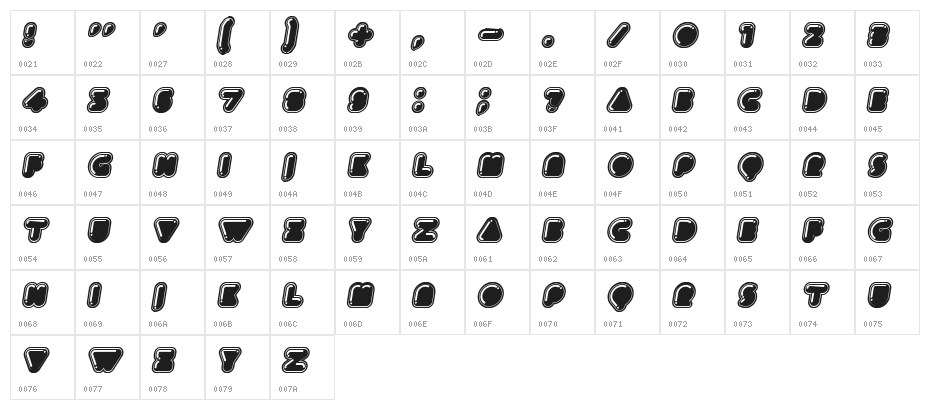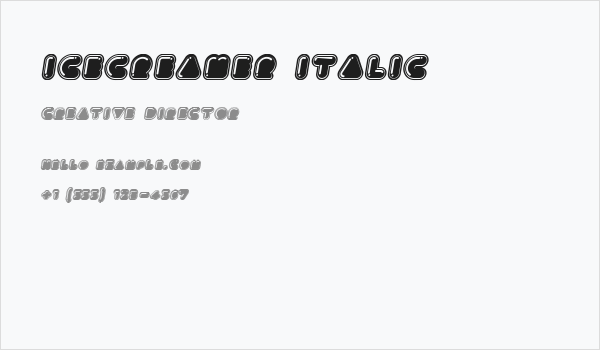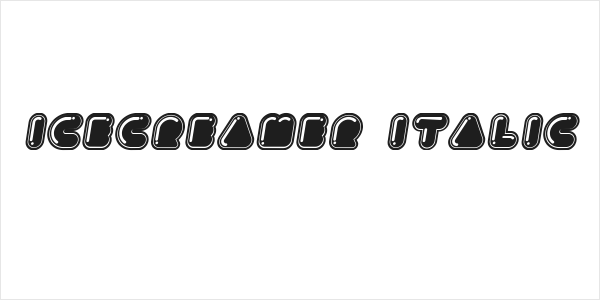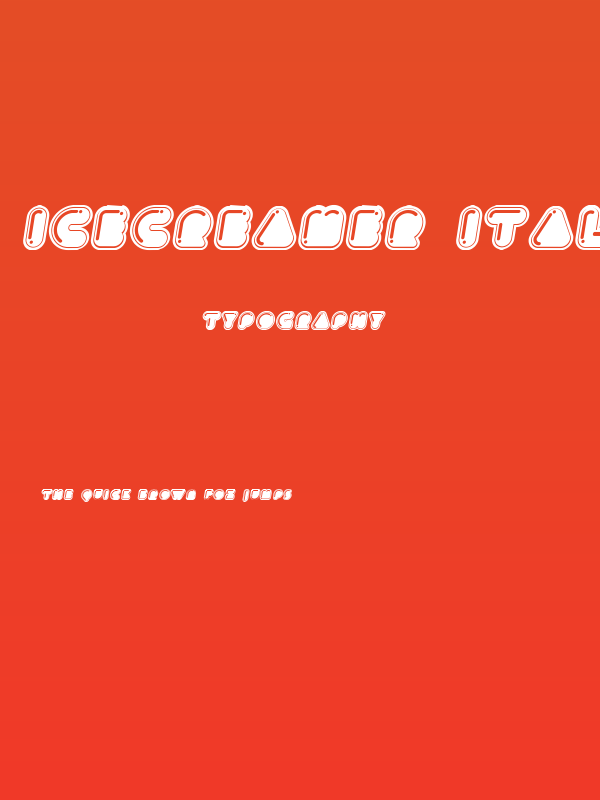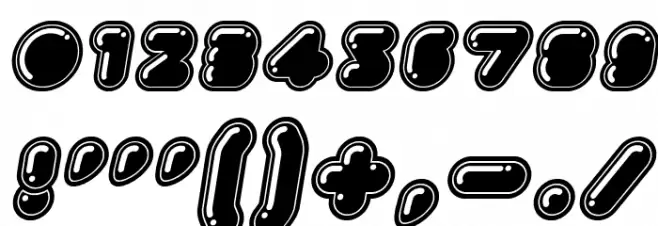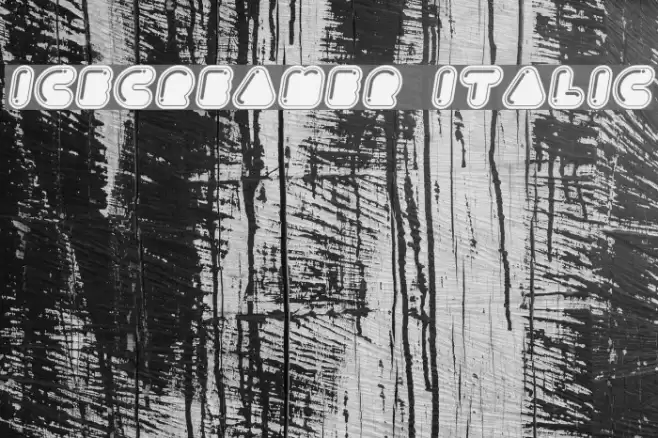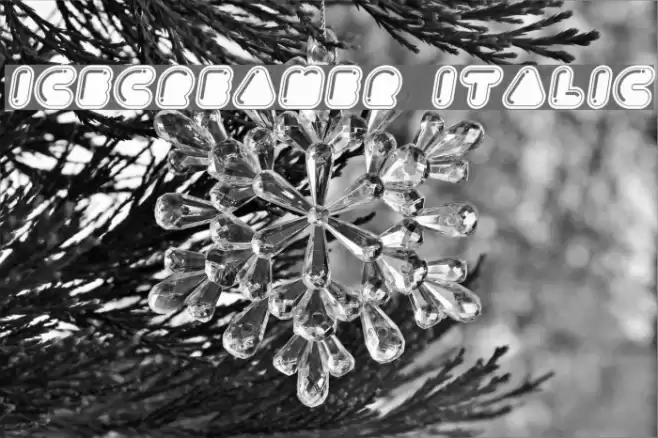
Icecreamer Italic Font
Icecreamer Italic Description
This playful and bold font features rounded, bubble-like characters that convey a sense of fun and whimsy. The letters are outlined with a thick black border, giving them a three-dimensional appearance. Each character is slightly tilted, adding to the dynamic and informal style. The font includes both uppercase and lowercase letters, numbers, and a variety of special characters. Its unique design makes it stand out, perfect for projects that require a touch of creativity and lightheartedness.
| Overall Style | Playful, Whimsical |
| Proposed Projects | Ideal for children's book covers, playful branding, party invitations, and creative posters. |